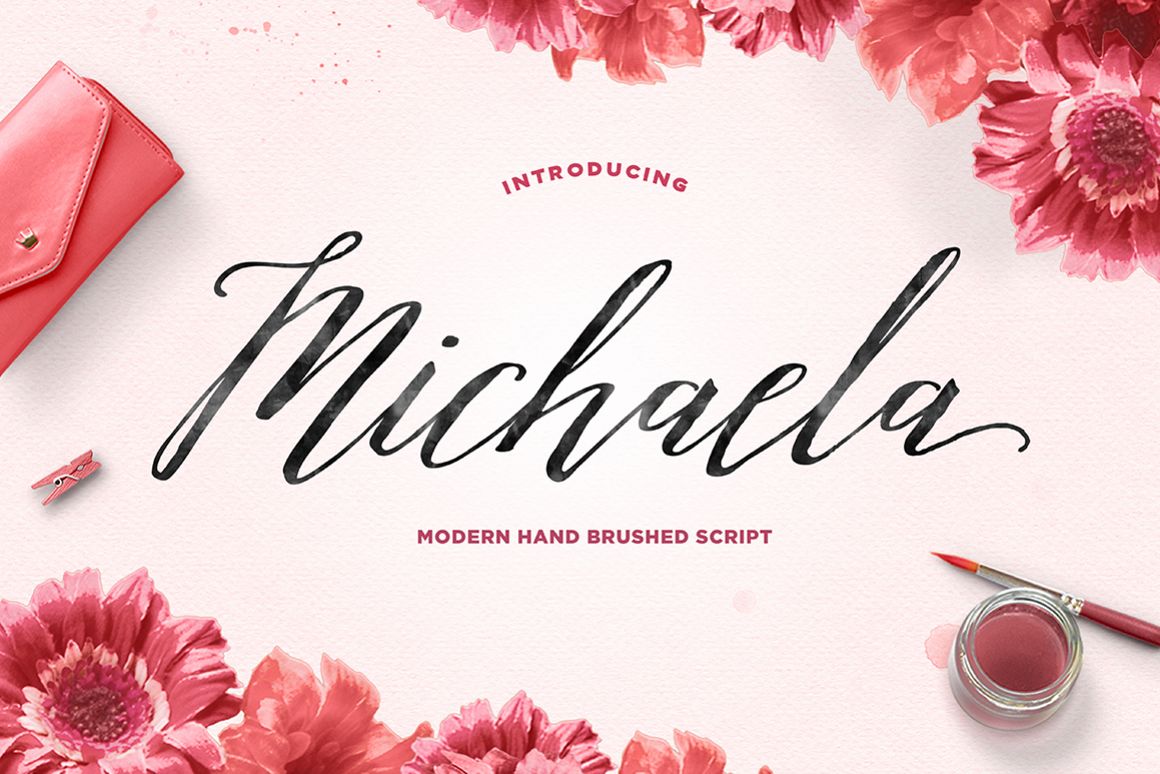
Michaela Script
Michaela Script is modern hand brushed script, organic, fun with dancing baseline. Different alternates and swashes to the beginning and ends of all lowercase.
Features 328 glyphs, Opentype features with stylistic sets. International support for most Western Languages is included. This fonts can be used for various purposes.such as headings, signature, logos, wedding invitation, t-shirt, letterhead, signage, lable, news, posters, badges etc.